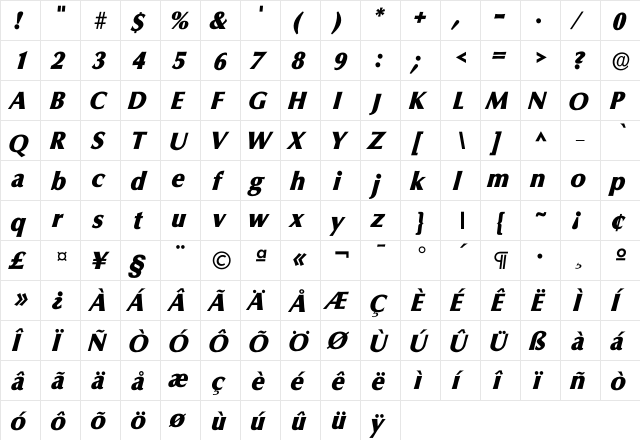
Icoluku ExtraBold
Design Context for Icoluku Typeface
Icoluku takes a measured approach to typography — its balanced proportions and neutral character make it a reliable workhorse for both digital and print work. The heavy weight commands attention and anchors typographic hierarchies.